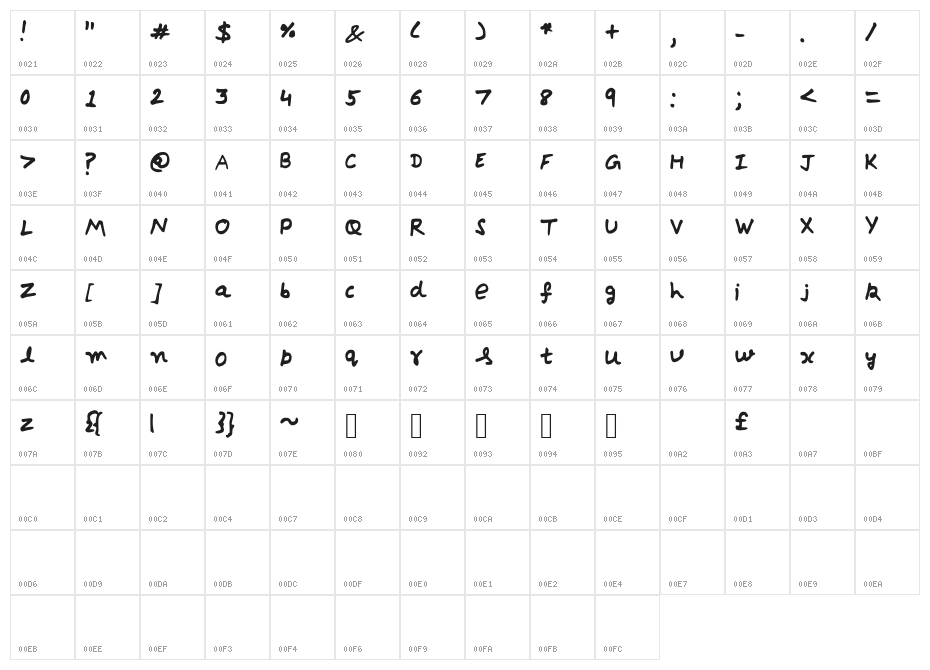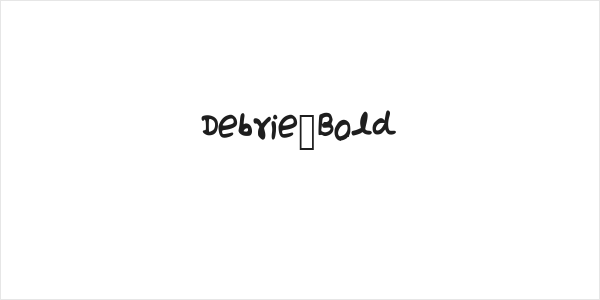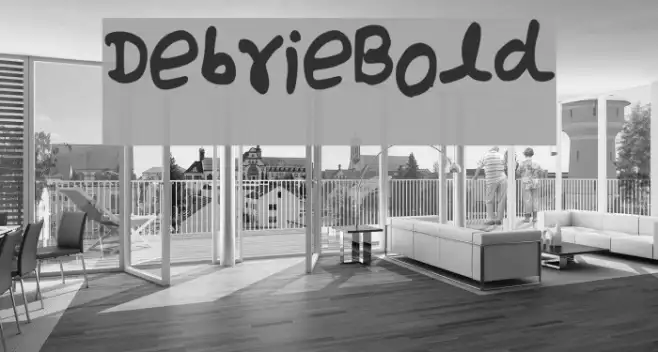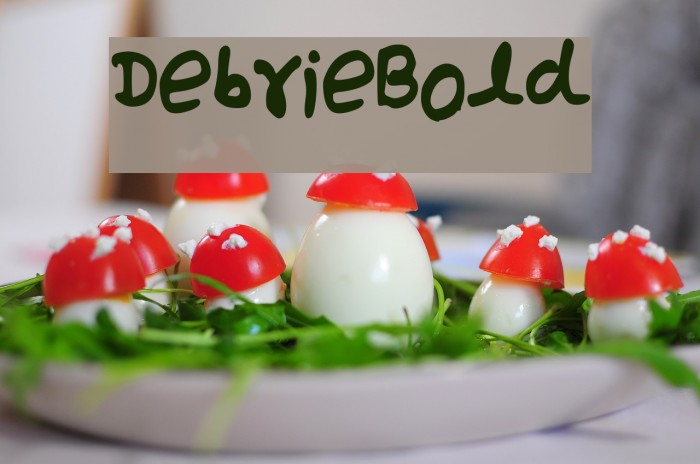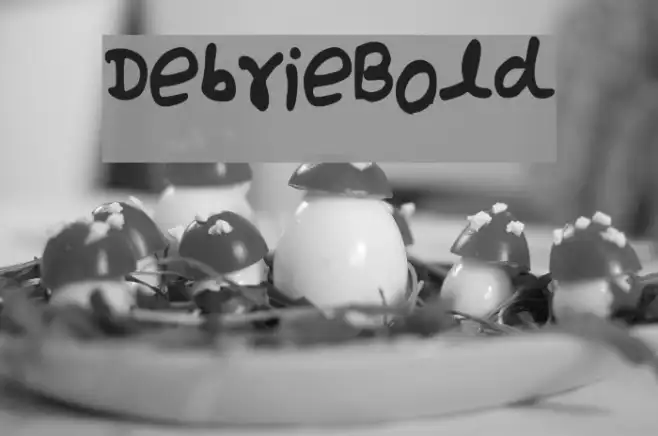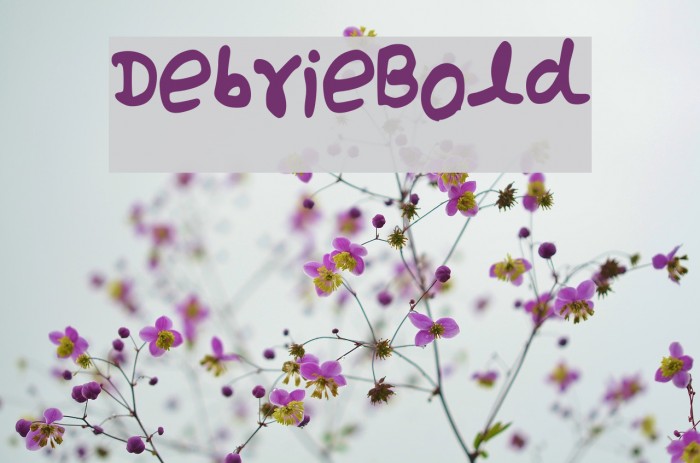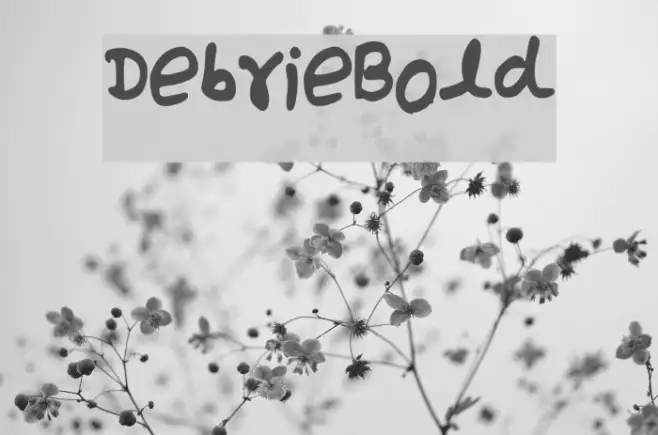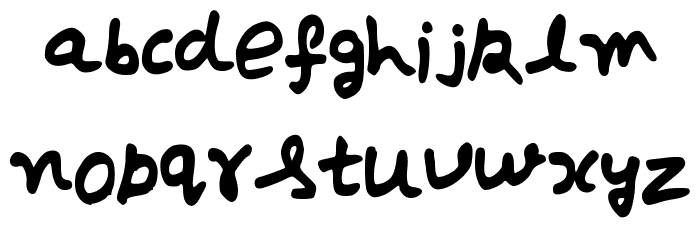
Debrie_Bold Font
Debrie_Bold Description
This font features a playful and bold handwritten style, characterized by its thick strokes and casual appearance. The letters are slightly slanted, giving it a dynamic and energetic feel. The uppercase and lowercase letters maintain a consistent flow, with rounded edges and a slightly irregular baseline that adds to its informal charm. The numerals and special characters follow the same playful aesthetic, making it suitable for creative and fun projects. Its boldness ensures readability while maintaining a unique and artistic flair.
| Overall Style | Playful, Casual |